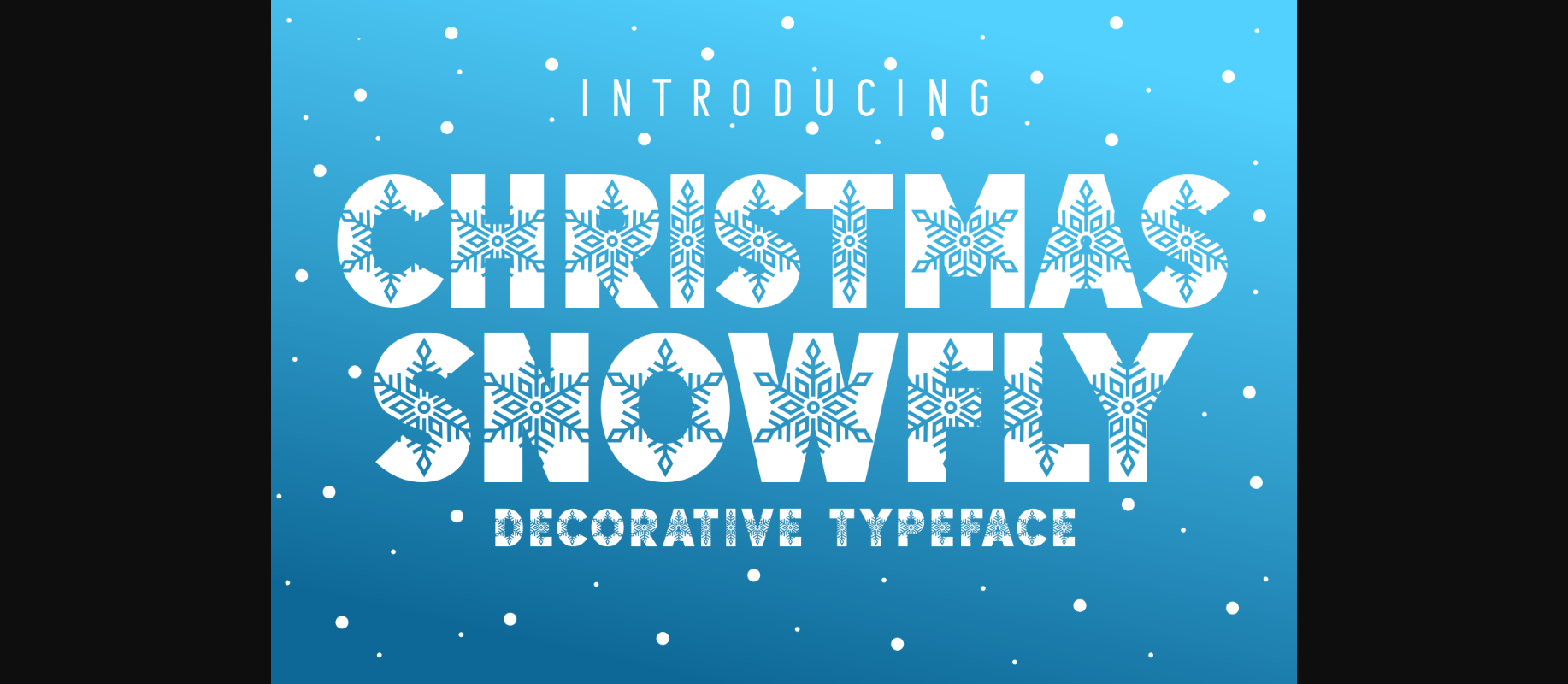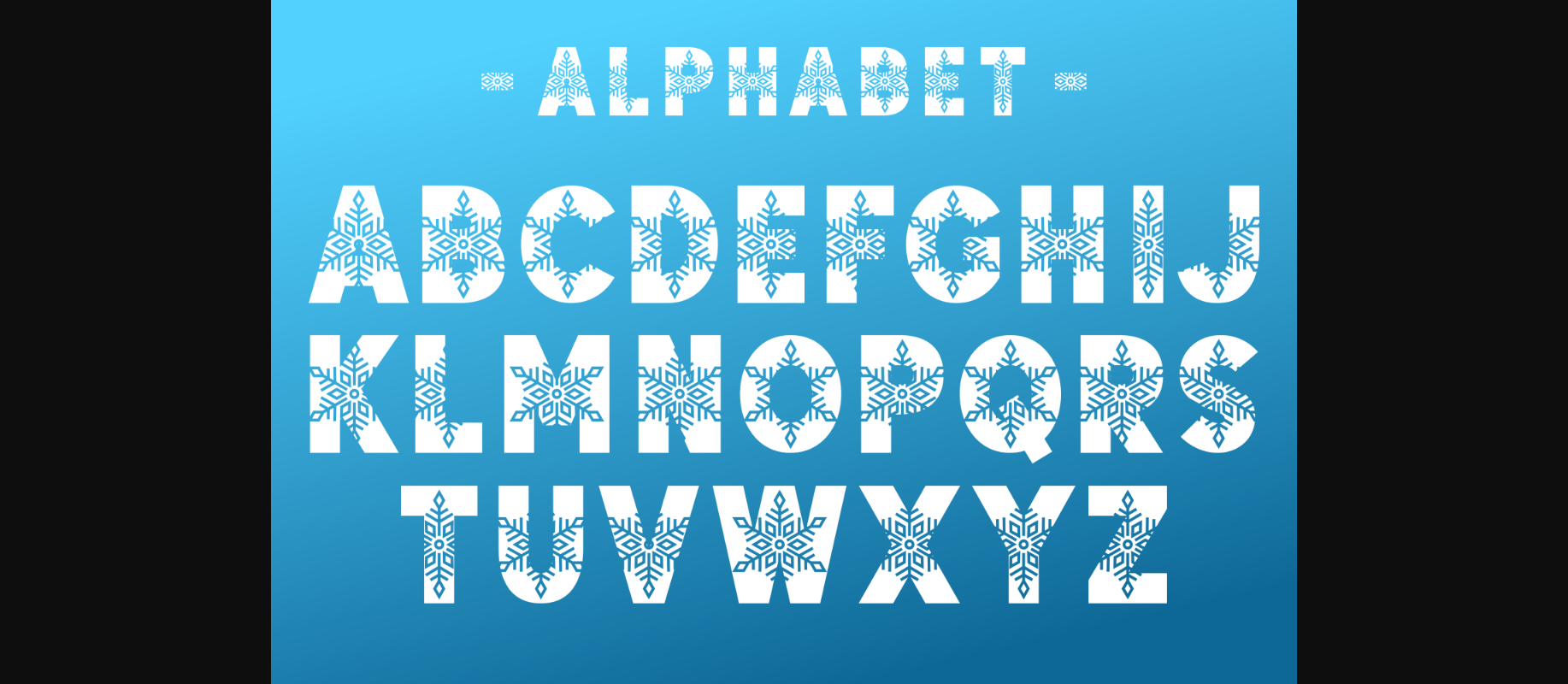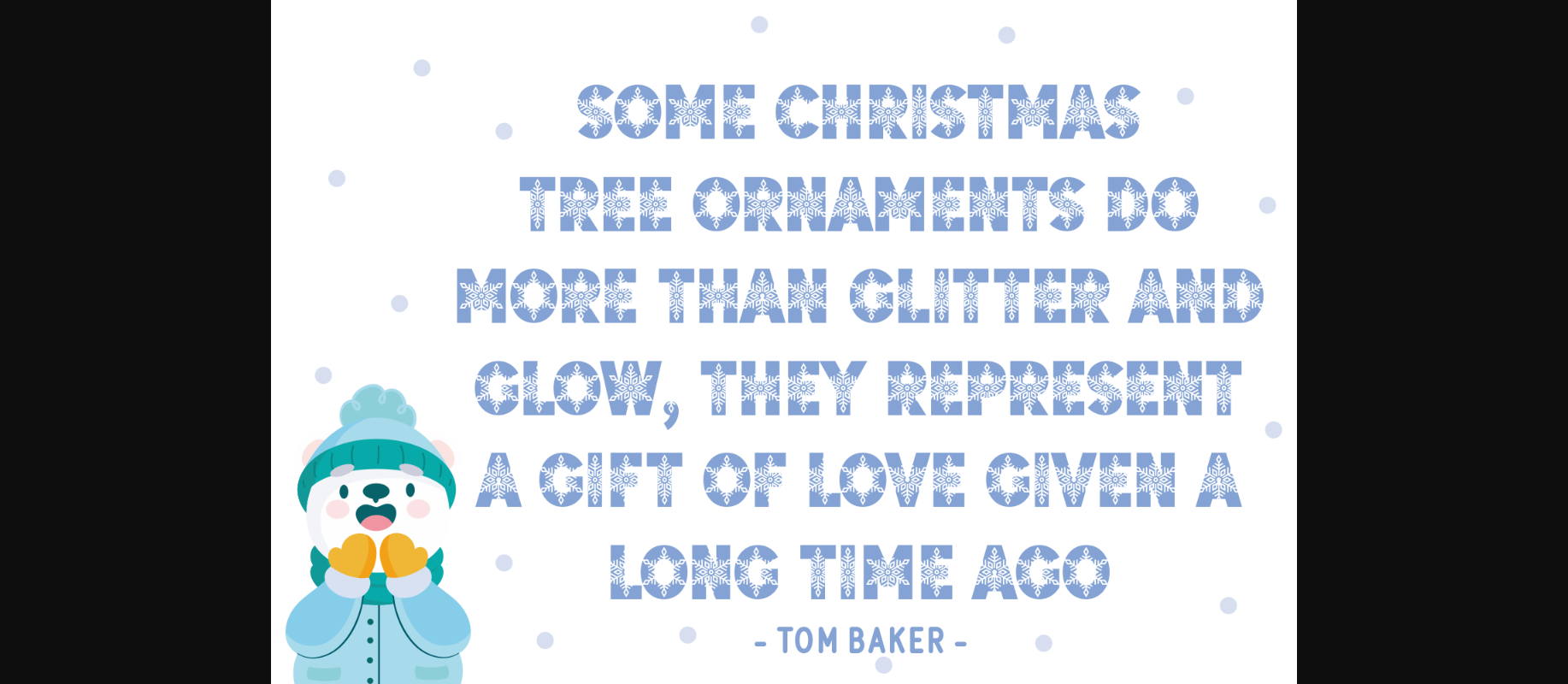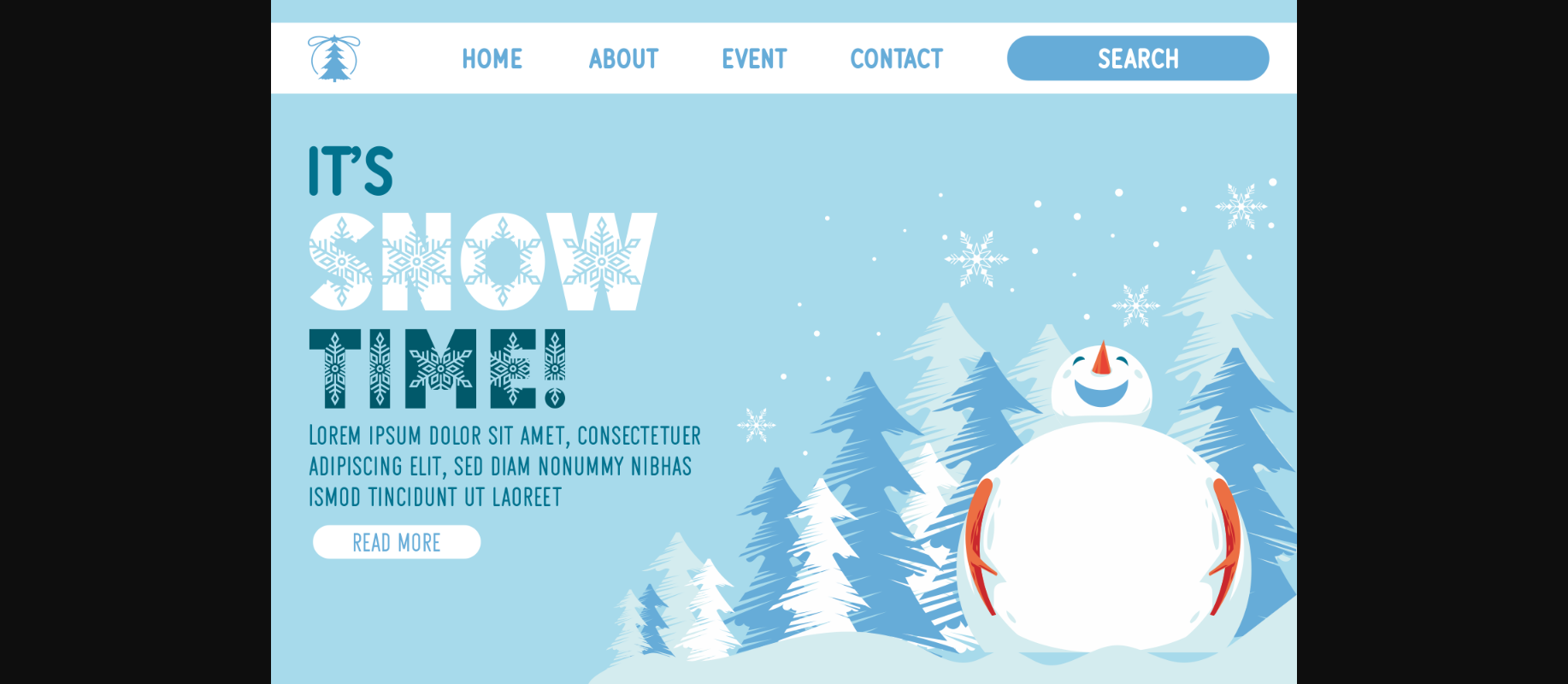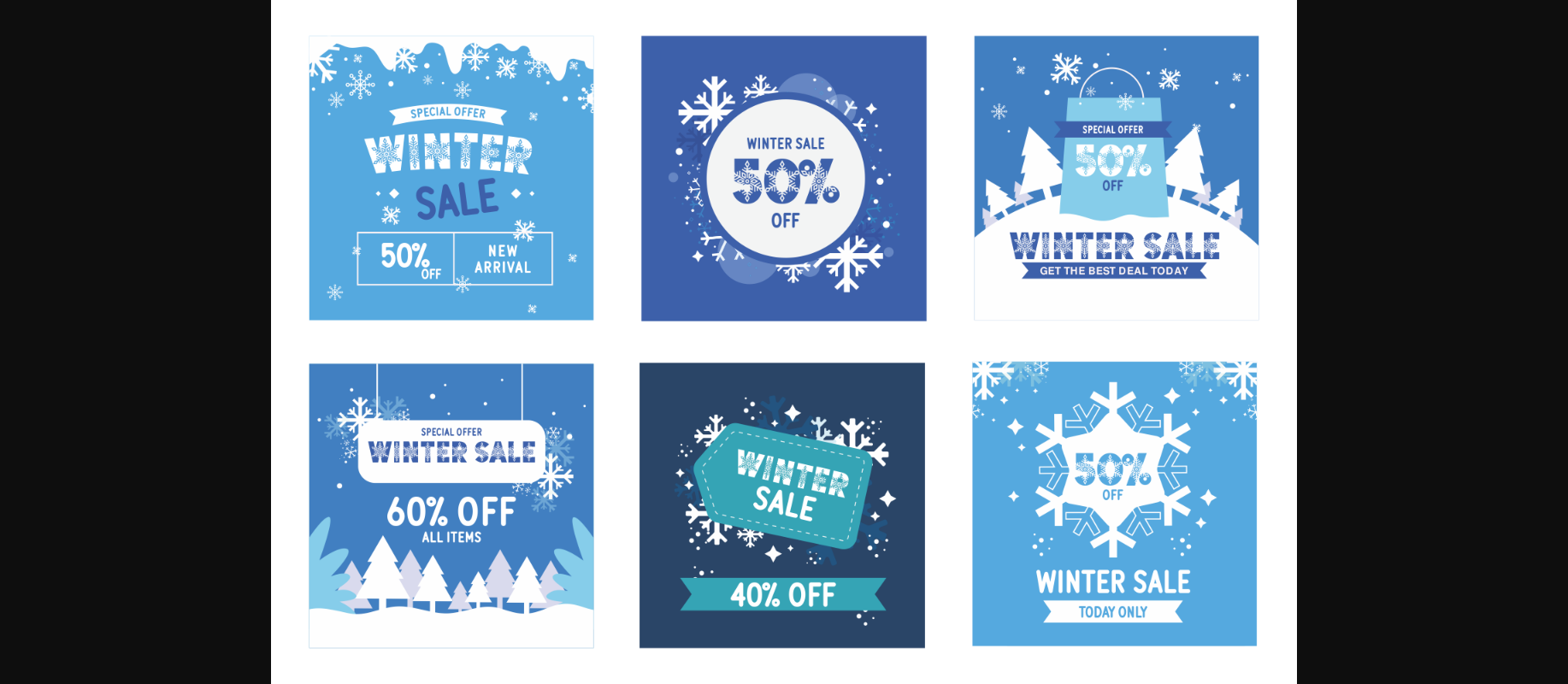
Christmas Snowfly is a wintery, thick lettered and uniquely designed decorative font. It embodies playfulness and authenticity and is the perfect choice for any children activity or school project.